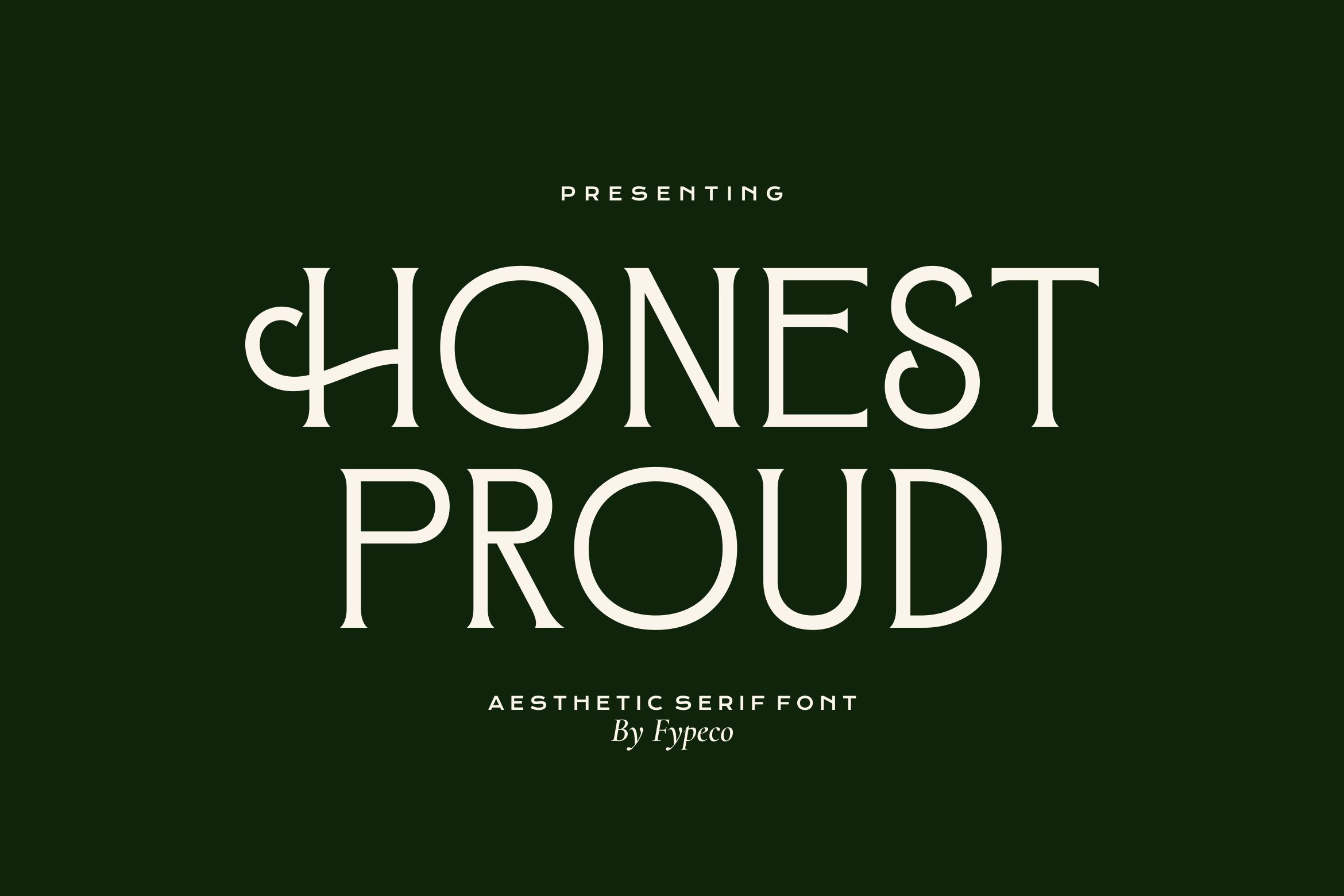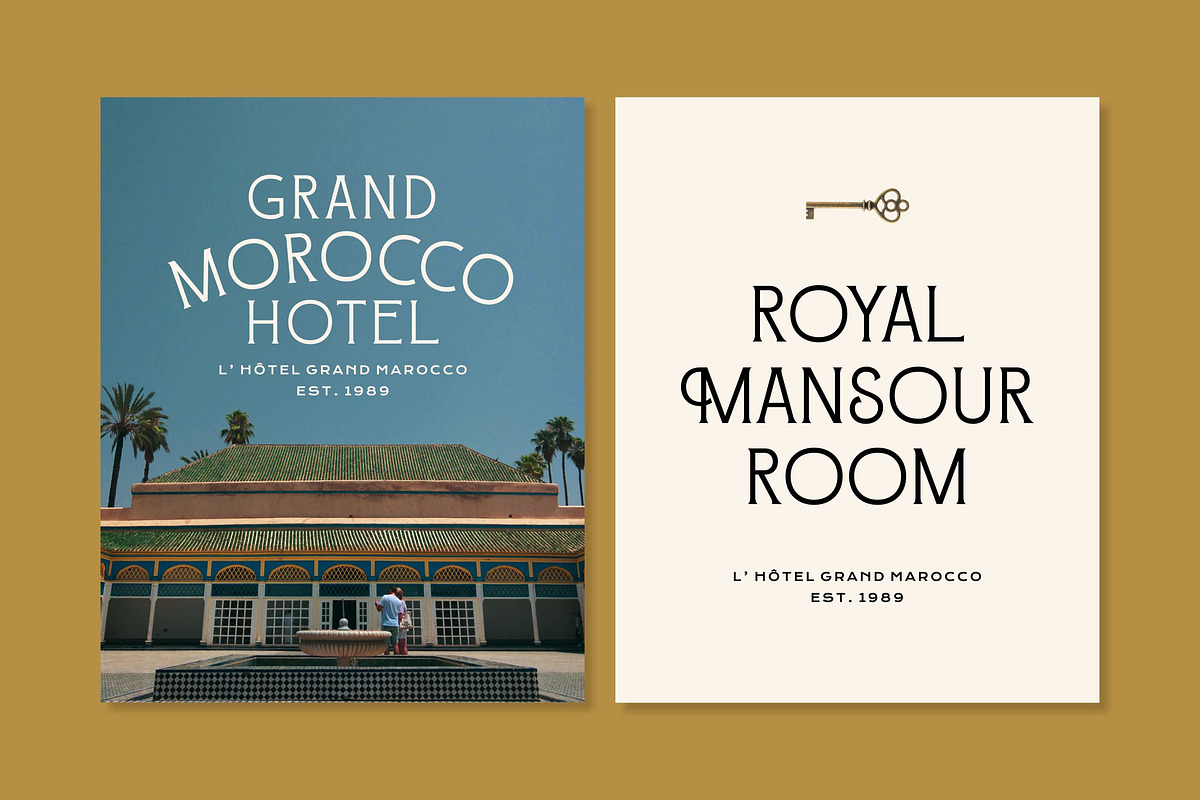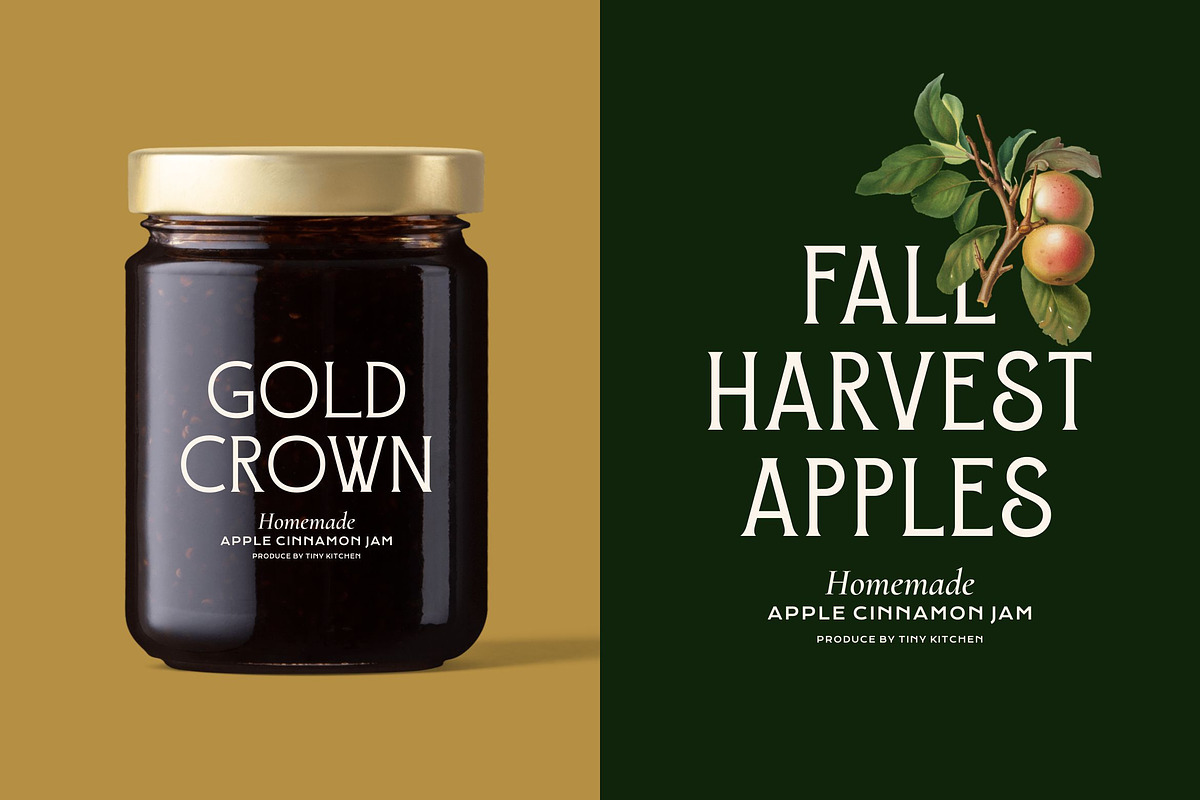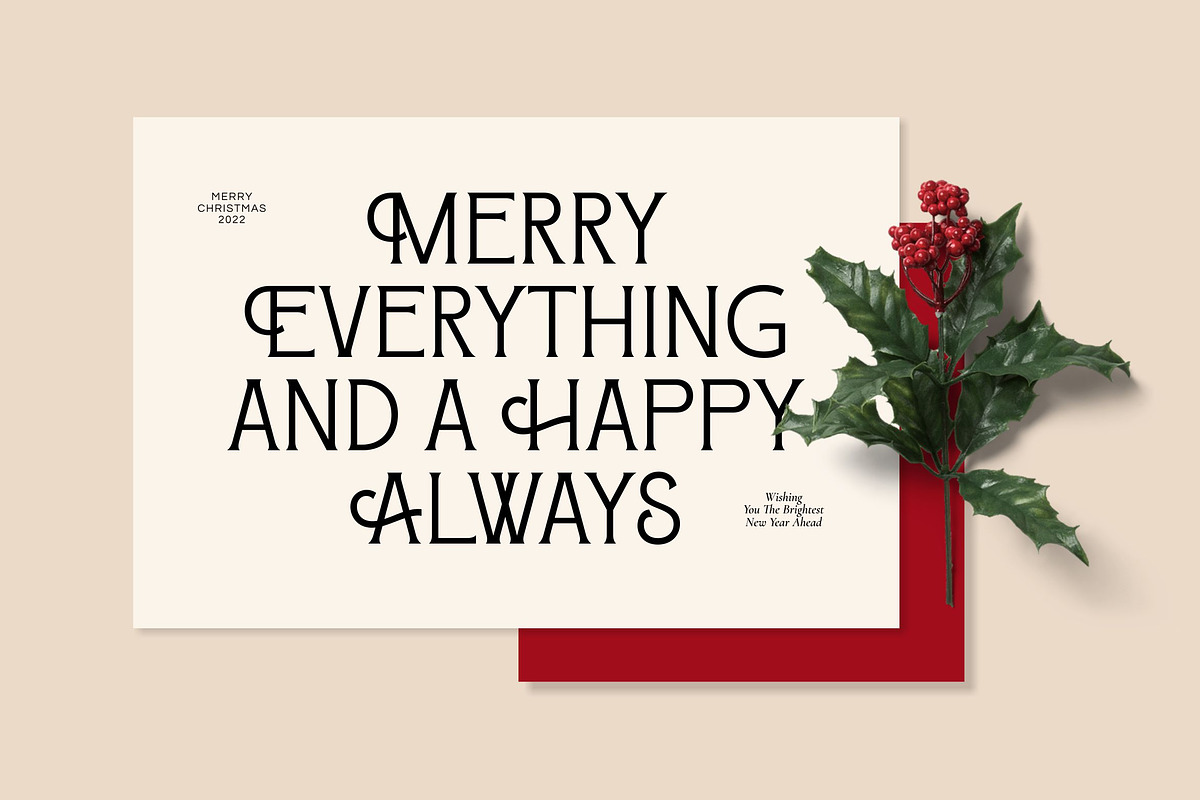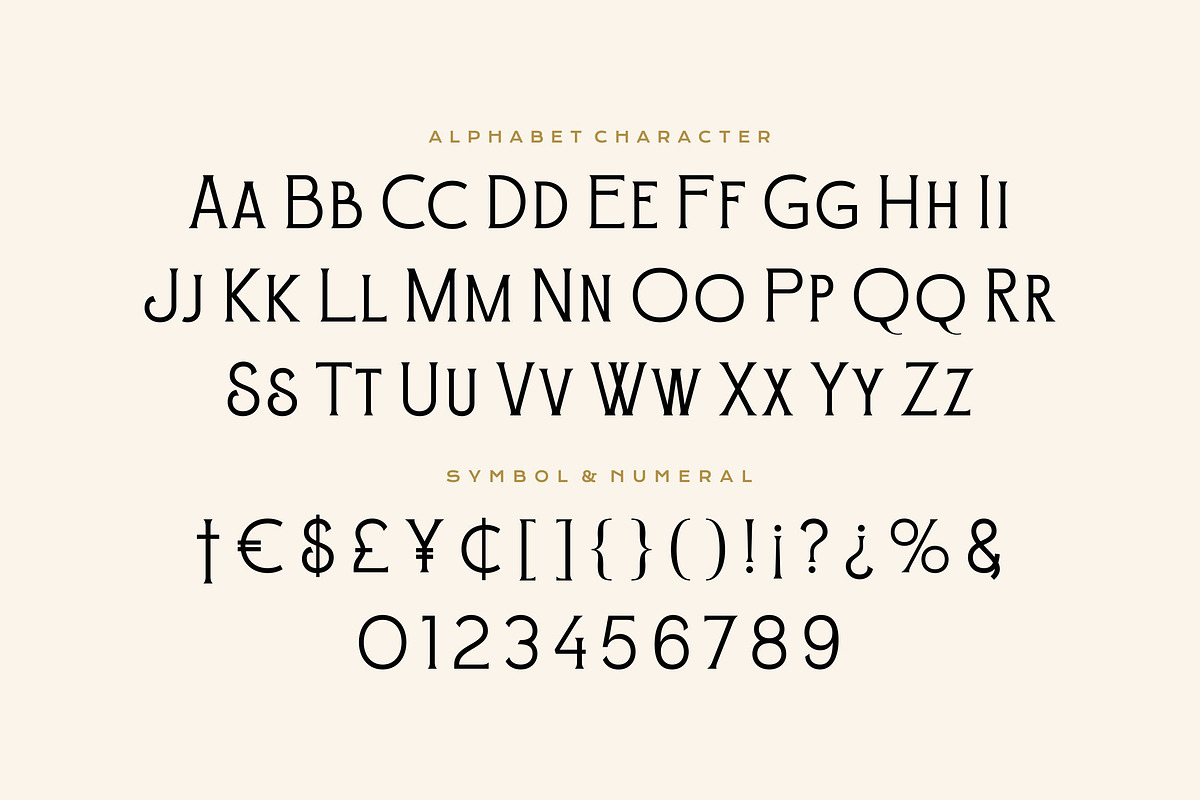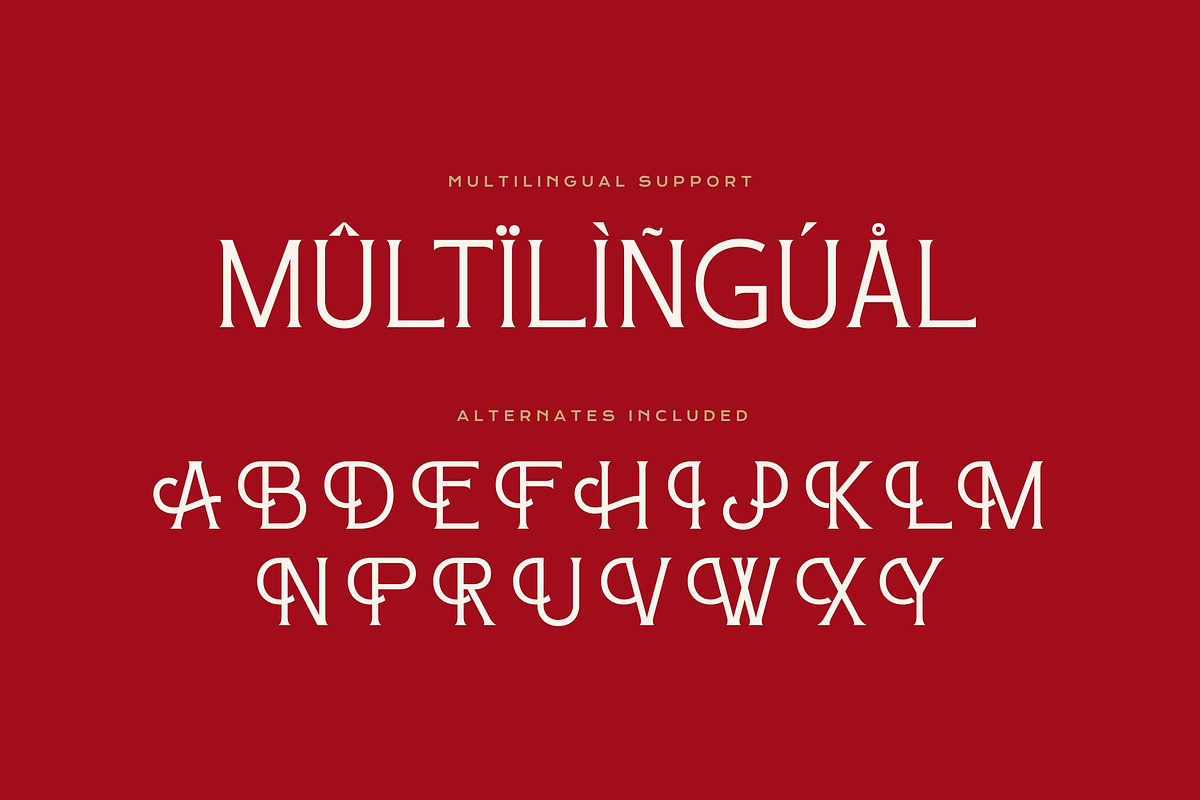
Honest Proud - Aesthetic Serif Font
Honest Proud is aesthetic serif font with loth of alternates. Perfect for who needing a touch of elegancy, stylish, classy, and unique. Very supportive for branding needs, such as poster design, packaging, labels, logos and text that is not too long.
- Alternatives